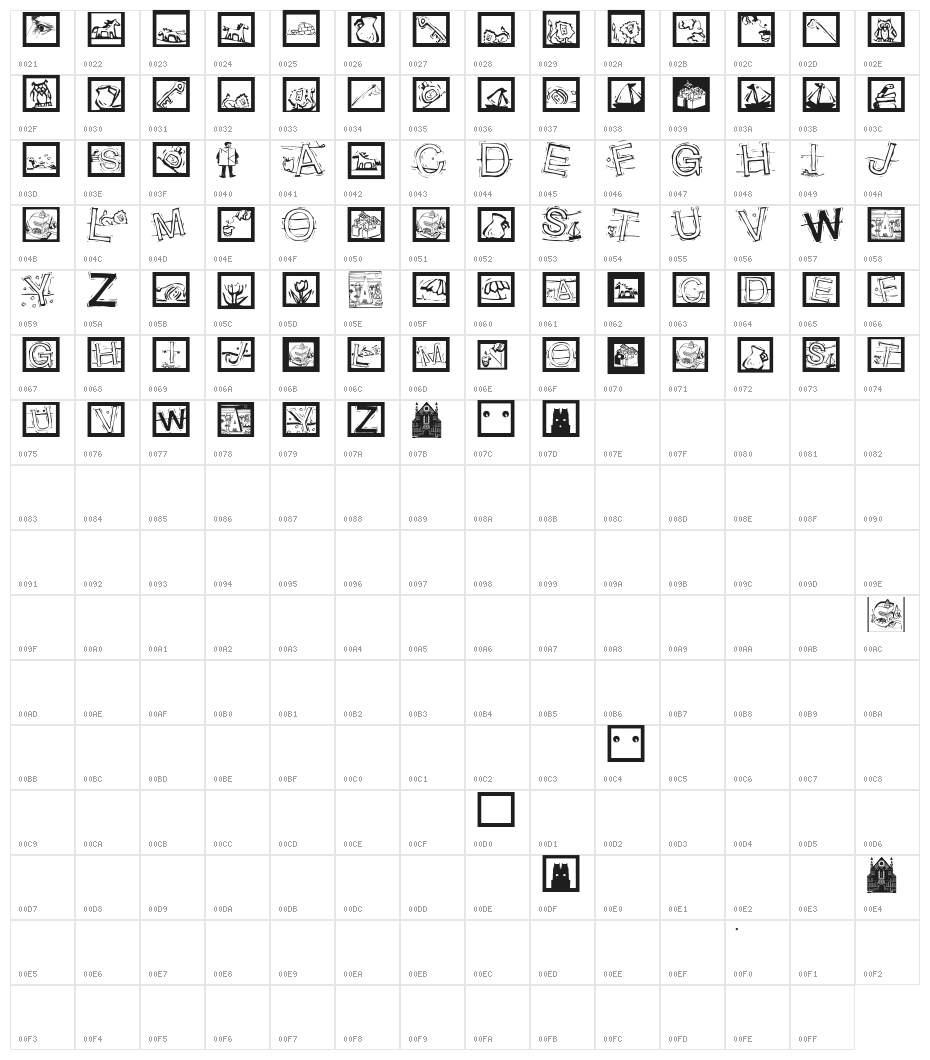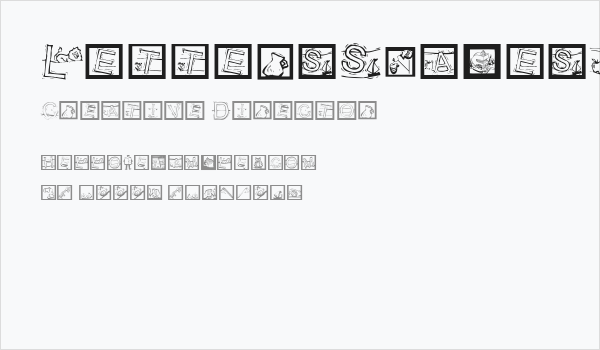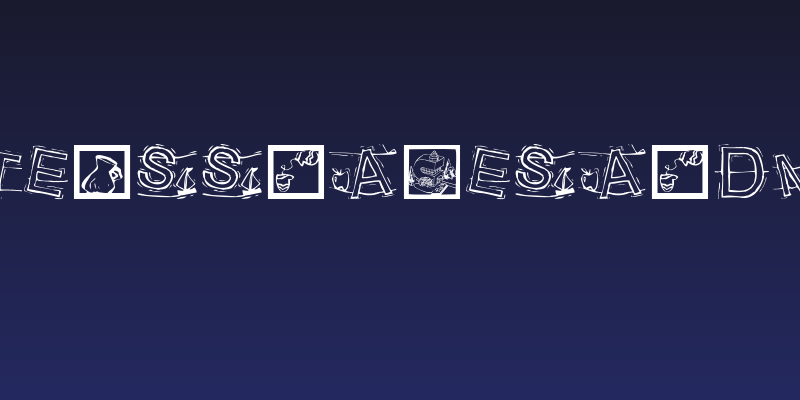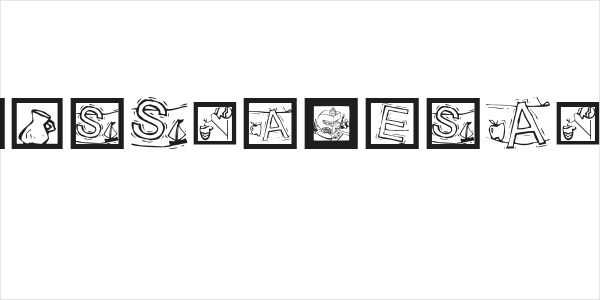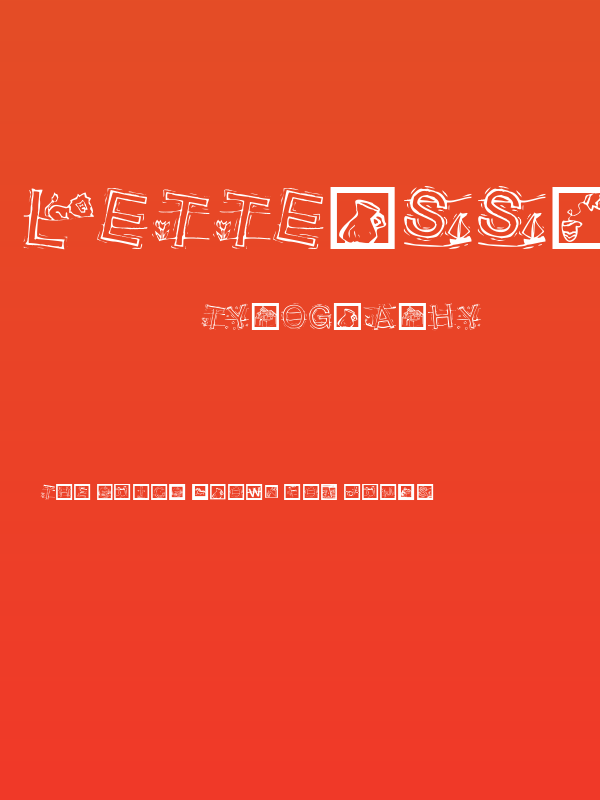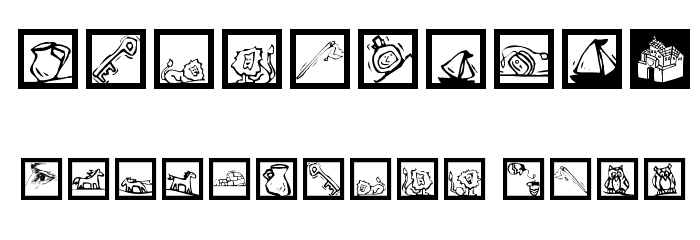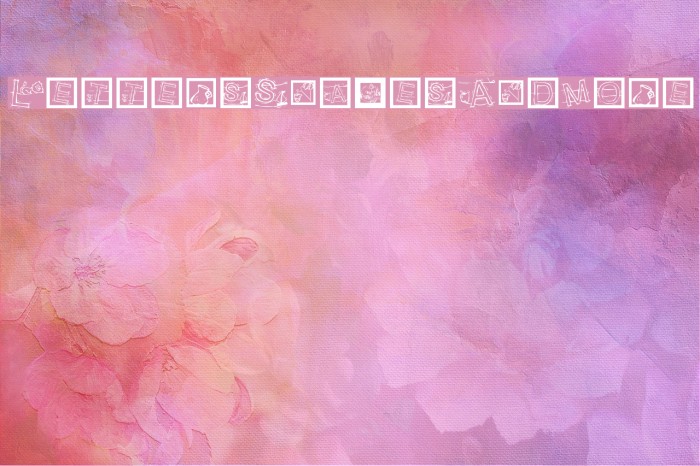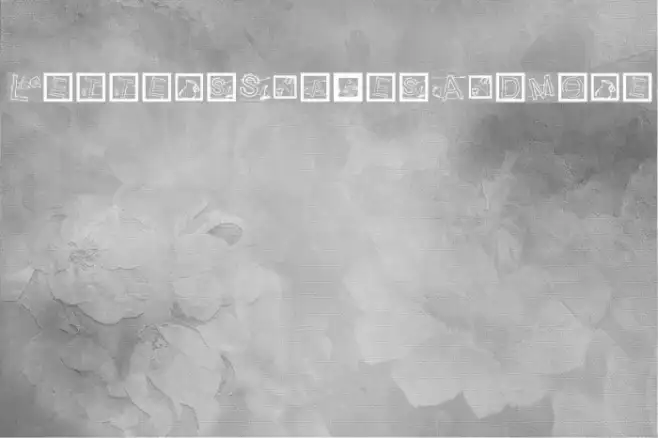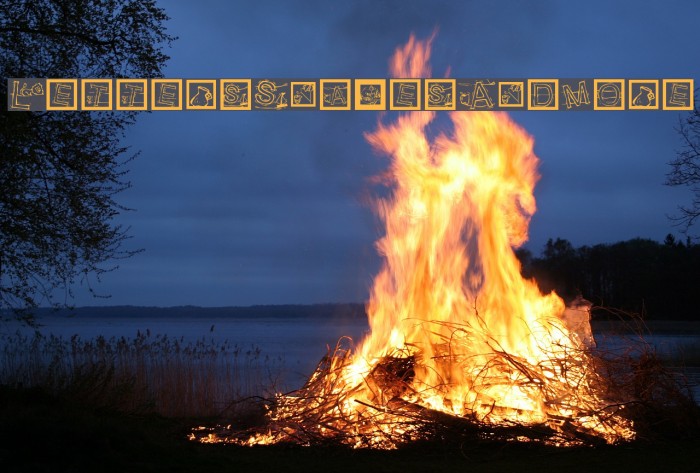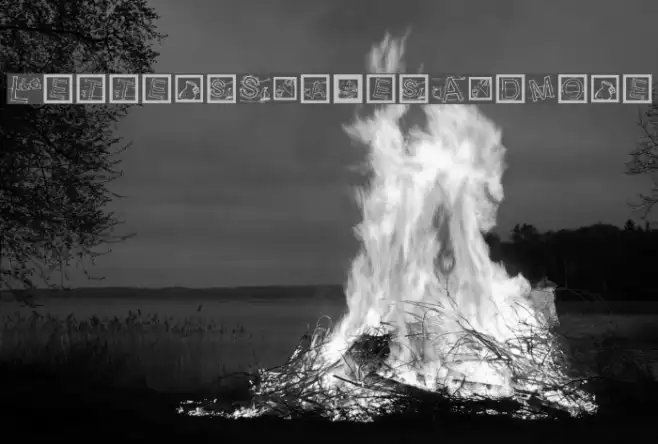
LettersSnakesAndMore Font
LettersSnakesAndMore Description
This playful and whimsical font features each letter embedded within a unique illustration, creating a lively and engaging visual experience. The characters are surrounded by various thematic elements, such as animals, objects, and scenes, making each letter a small piece of art. The style is decorative and imaginative, with a hand-drawn quality that adds a personal touch. The font is perfect for creative projects that require a fun and artistic flair, such as children's books, playful branding, or themed event materials.
| Proposed Projects | Ideal for children's books, playful branding, themed event materials, and creative posters. |